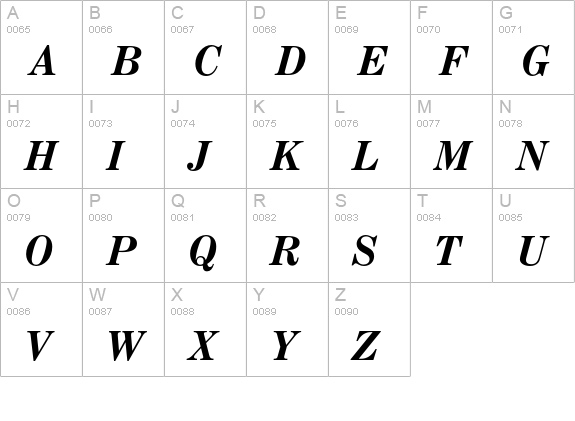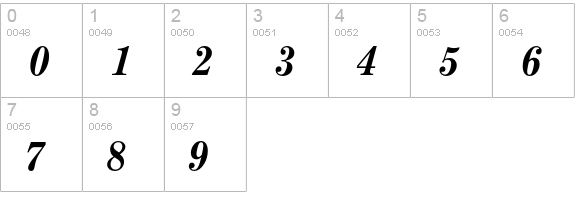
Century Expanded Bold Italic Font Details
Century Expanded Bold Italic is a strong, high-contrast, extended-width, italic variant in the Century typeface family \xE2\x80\x94 well suited to headlines, attention-grabbing titles, and strong calls-to-action.
Century Expanded Bold Italic is a striking and elegant font that exudes sophistication and style. The bold italic style adds a touch of emphasis and flair to any design project. Its clean lines and sharp angles make it a versatile choice for a wide range of applications, from branding to editorial design. This font is perfect for creating eye-catching headlines, titles, and subheadings that demand attention. The bold italic weight gives your text a strong presence on the page, making it ideal for making a statement or highlighting important information. Whether you're designing a magazine layout, advertising campaign, or website, Century Expanded Bold Italic is sure to make a lasting impression. Its timeless appeal and modern aesthetic make it a go-to choice for designers looking to add a touch of class to their work. Best of all, Century Expanded Bold Italic is available for free download at FontsMarket.com. Now you can elevate your designs with this stunning font without breaking the bank. Download it today and see the impact it can have on your projects!